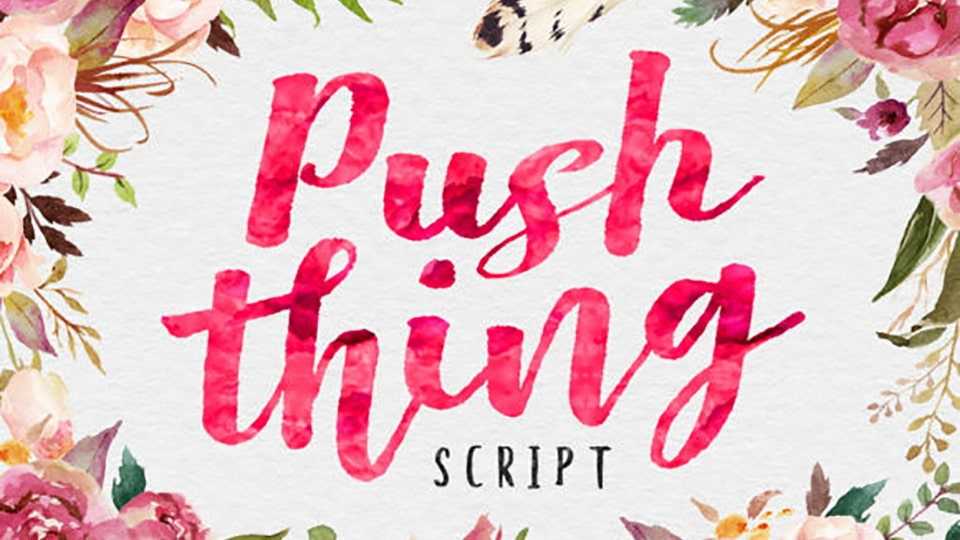
Download Pust Thing font, a magical script typeface carefully created with a touch of elegance. This font is PUA encoded which means you can access all of the glyphs and swashes with ease!